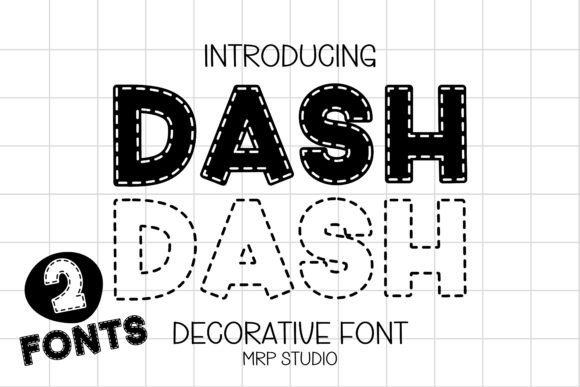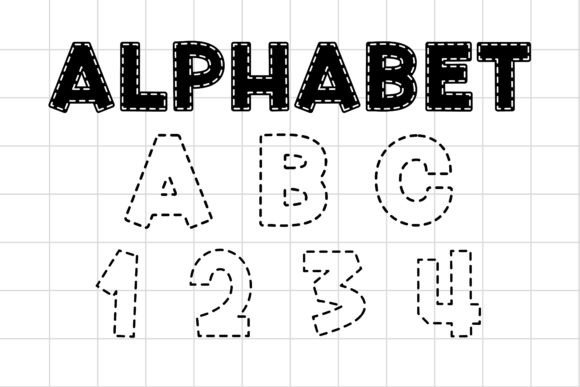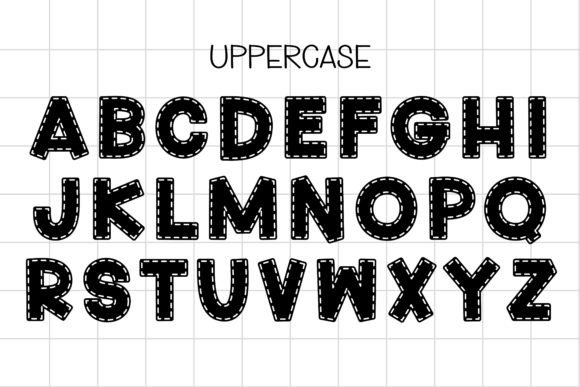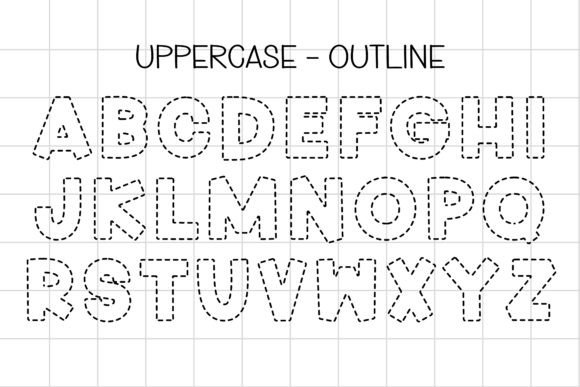
Dash Font: A Playful Decorative Font for Cricut Crafts & DIY Projects
About the Dash Font
Add a touch of class to your work with the Dash Font, a truly exceptional typeface. Dash is designed in a playful and adorable decorative font style. Whether you’re using it for crafting, digital designing, presentations, or greeting card making, it’s perfect! The only limit is your imagination!
Dash’s playful, decorative style shines in headlines, short titles, and playful branding projects for children’s products or whimsical businesses. It works exceptionally well for greeting cards, invitations, and packaging design where a touch of fun is desired. However, its decorative nature makes it unsuitable for body text or UI elements, where readability is paramount. Long paragraphs set in Dash would be difficult to read.
For optimal visual harmony, pair Dash with a clean sans-serif like Open Sans for body text or a more structured serif such as Merriweather for a sophisticated contrast. Consider a simple geometric sans-serif like Montserrat to balance its playful curves, maintaining a contemporary feel.
Dash’s core personality is undeniably friendly and approachable, making it a great choice for projects aiming for a lighthearted and charming aesthetic. Avoid using it in projects demanding seriousness or formality.